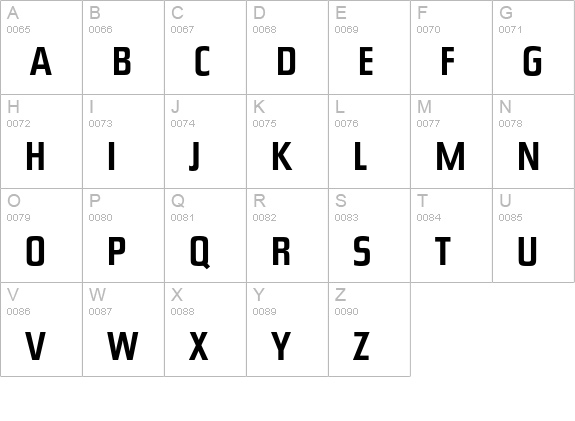
Steile Futura Bold is a strong, high-contrast variant in the Steile typeface family \xE2\x80\x94 well suited to headlines, attention-grabbing titles, and strong calls-to-action.
Steile Futura Bold is a striking and modern typeface that exudes confidence and authority. With its clean lines and strong, bold letterforms, this font is perfect for making a bold statement in any design project. The Steile Futura Bold font is free to download at FontsMarket.com, making it easily accessible for designers looking to add a touch of sophistication and modernity to their work. Whether used for headlines, logos, or branding materials, Steile Futura Bold is sure to make a lasting impression with its sleek and contemporary aesthetic.